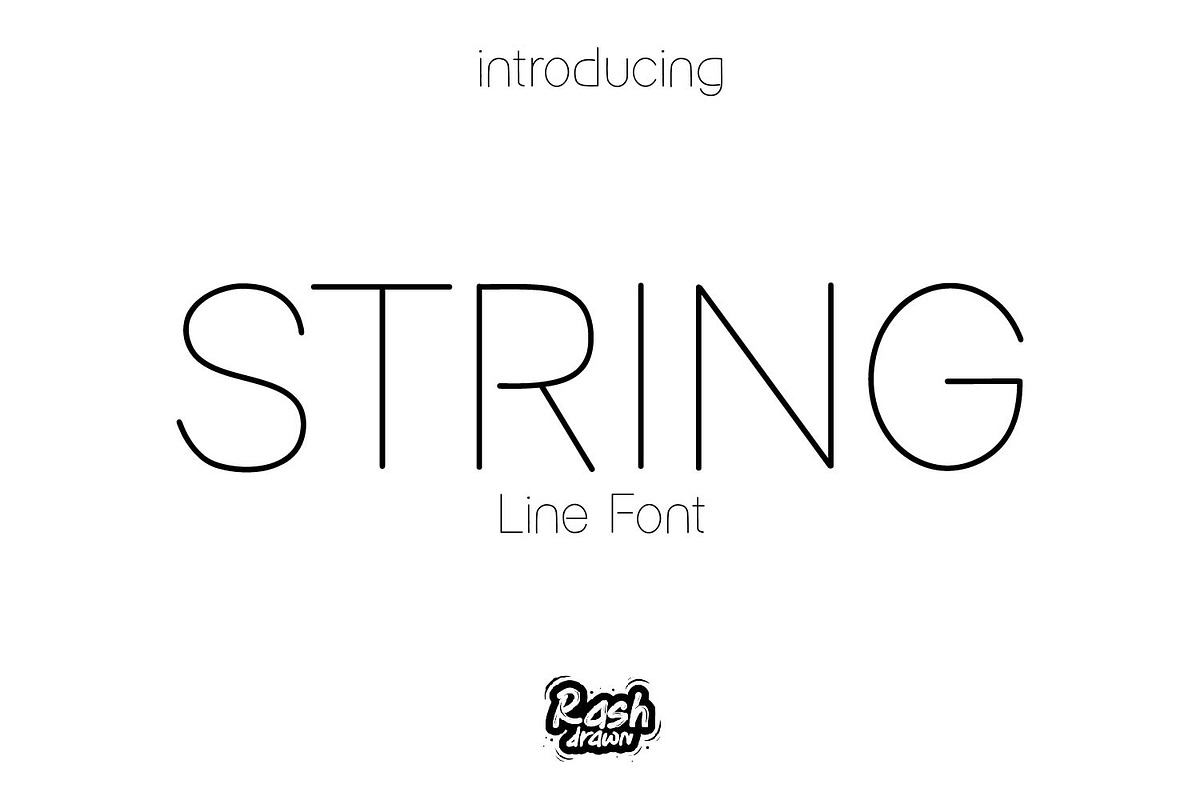
Please note, to use this font for commercial purposes, you must purchase the full version. String is a unique and creative font designed to bring a playful and artistic touch to your designs. With its distinct letterforms, resembling strings or threads, this font is perfect for logos, branding, posters, invitations, and creative projects. Whether you're working on a whimsical brand identity, a fun event invitation, or a playful promotional campaign, String adds personality and charm to your work. Test it out and enjoy free download access for personal use. Experience the creativity of String Font Free Download before purchasing the commercial license. Add a unique, string-inspired touch to your designs with String.